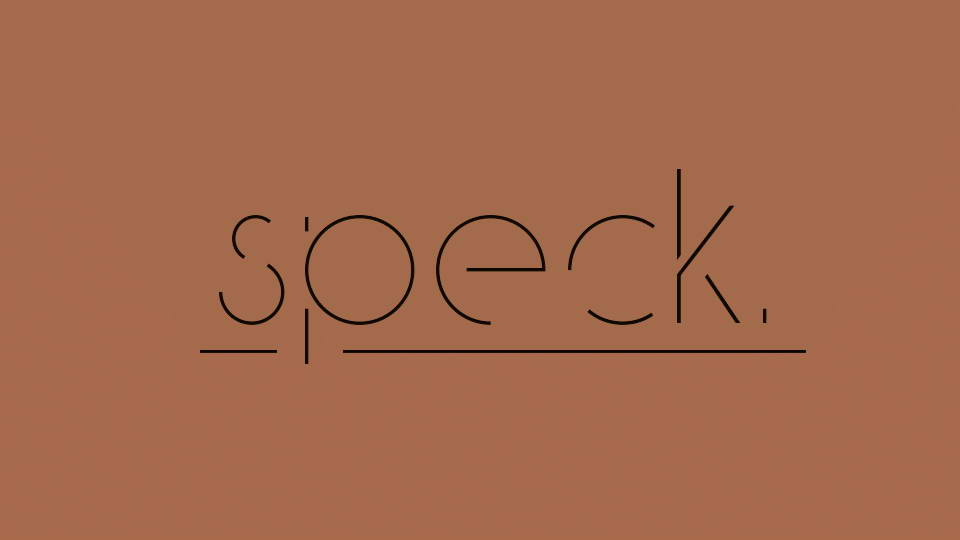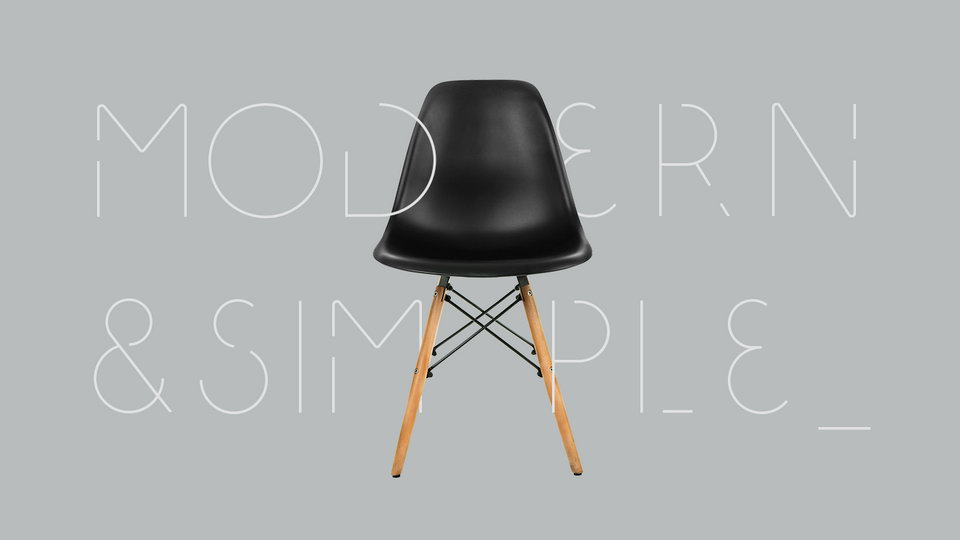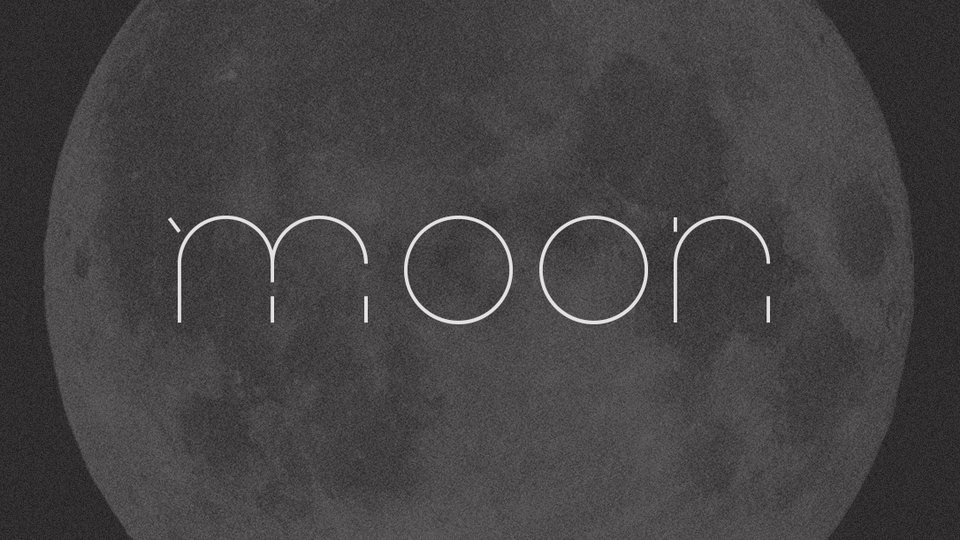
Speck is a modern and clean experimental sans serif with lightweight and airy look. It contains standard glyph set, numbers, symbols.
Speck font is suitable for branding, logo, magazines, posters, social media and other artworks.